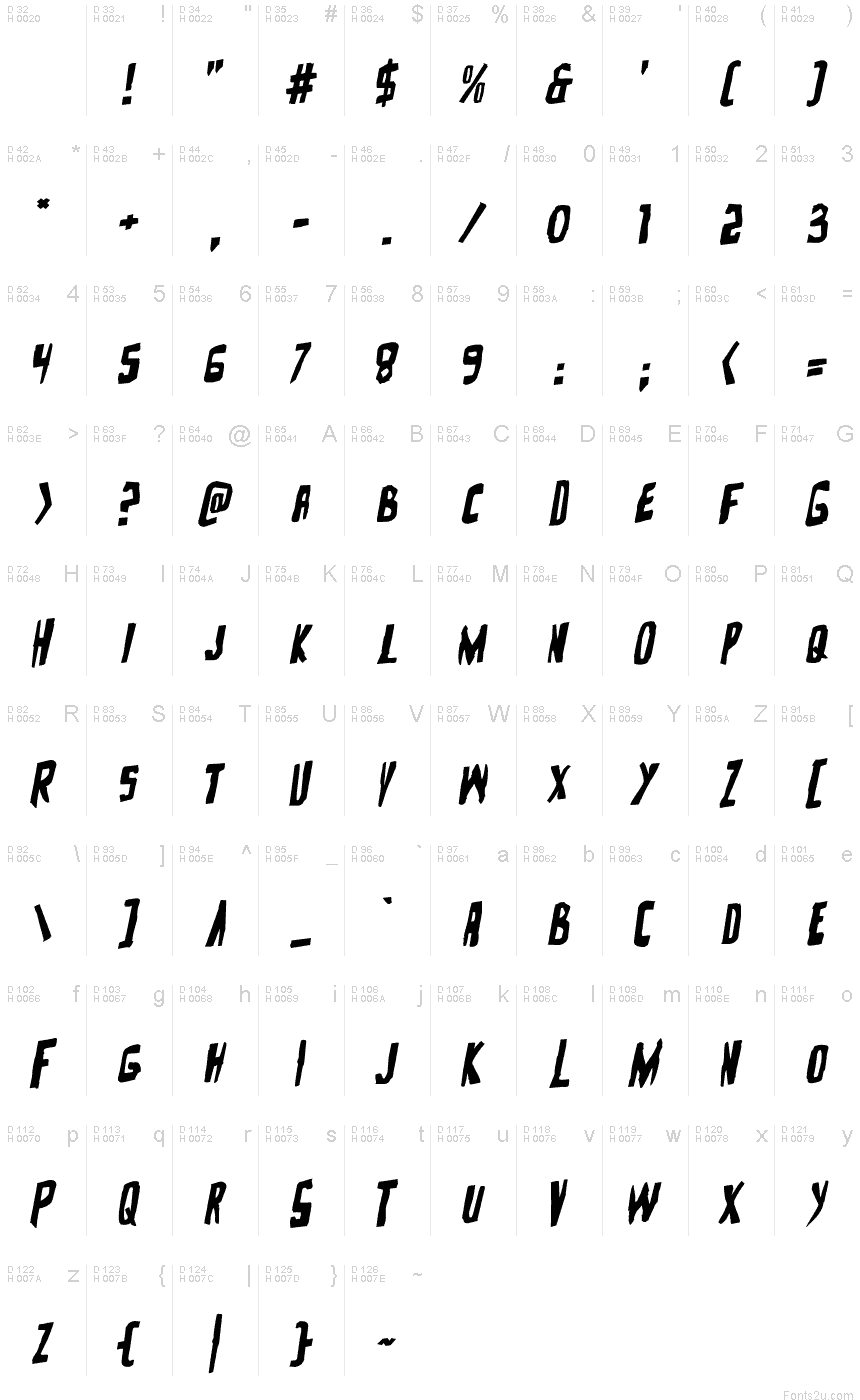
Zakenstein Rotalic Italic by Daniel Zadorozny of Iconian Fonts is a free graffiti display font with a hard, slashing profile. Its tall, tightly packed letters lean forward, with uneven edges and abrupt cuts that suggest quickly painted street lettering. Broad black strokes are broken by sharp wedges and narrow openings, giving the alphabet a restless silhouette.
Underground music and urban action themes suit its aggressive shapes, making it useful for gig posters, skate merchandise, and game graphics. It is most convincing in a title treatment, where the compressed forms read like a hand-drawn band logo.
Zakenstein Rotalic